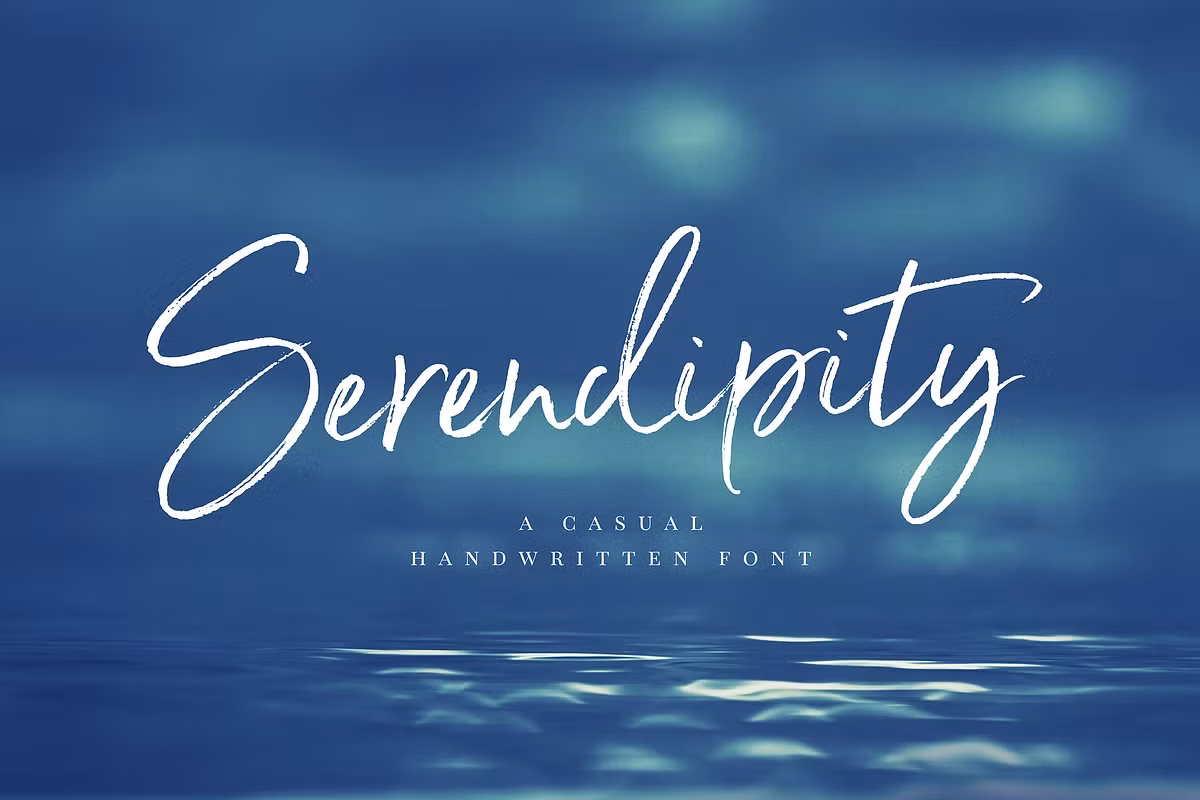
Serendipity Handwritten Font Free Download
Serendipity Handwritten Font Free Download is a charming and playful script font that captures the natural flow of handwriting with a modern twist. Its smooth curves and casual elegance make it an excellent choice for greeting cards, social media graphics, lifestyle branding, and creative DIY projects. The font adds a personal, heartfelt touch to any design, perfect for conveying warmth and authenticity.
Designed with attention to detail, Serendipity Handwritten Font Free Download offers great readability while maintaining a handwritten feel. It includes stylistic alternates and ligatures to give your text variety and a more natural appearance. Whether you're designing for digital or print, this font adapts beautifully and brings life to your message.